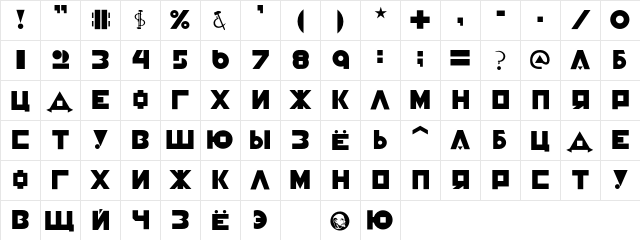
Constructivist Cyrillic Free Font
Constructivist Cyrillic
Style: Cyrillic
Design Context for Constructivist
Constructivist is a composed and adaptable typeface that performs quietly and consistently across a wide range of design contexts.